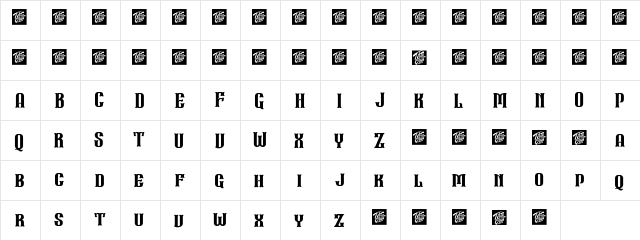
WallAxe Black Regular
| Designer | Farhan T. Sudibya |
Design Context for WallAxe Black Typeface
WallAxe Black is a composed and adaptable typeface that performs quietly and consistently across a wide range of design contexts.